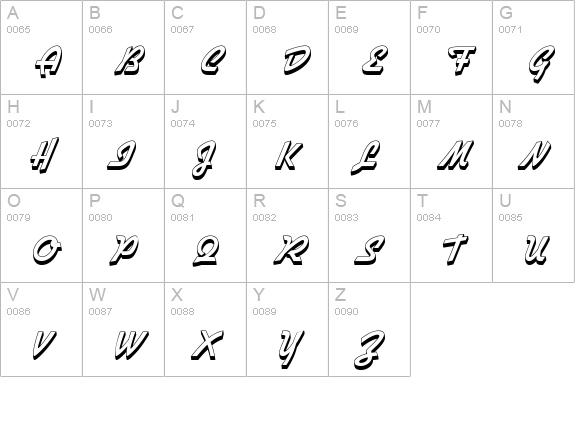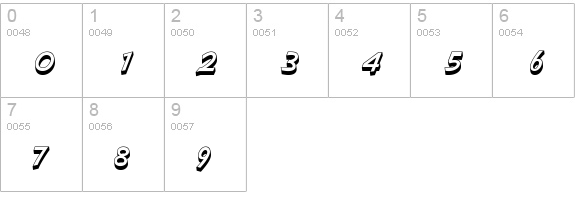
Hillary Font Details
Hillary font is a modern and stylish typeface that exudes elegance and sophistication. With its clean lines and sleek design, this font is perfect for a wide range of design projects, from branding to editorial design. The versatility of Hillary font makes it a great choice for both print and digital applications. What sets Hillary font apart is its unique blend of classic and contemporary elements, giving it a timeless appeal that will never go out of style. Whether you're looking to create eye-catching headlines or elegant body text, Hillary font has you covered. Best of all, Hillary font is available for free download at FontsMarket.com, making it accessible to designers of all levels. Don't miss out on this opportunity to add a touch of sophistication to your next project with the stunning Hillary font.